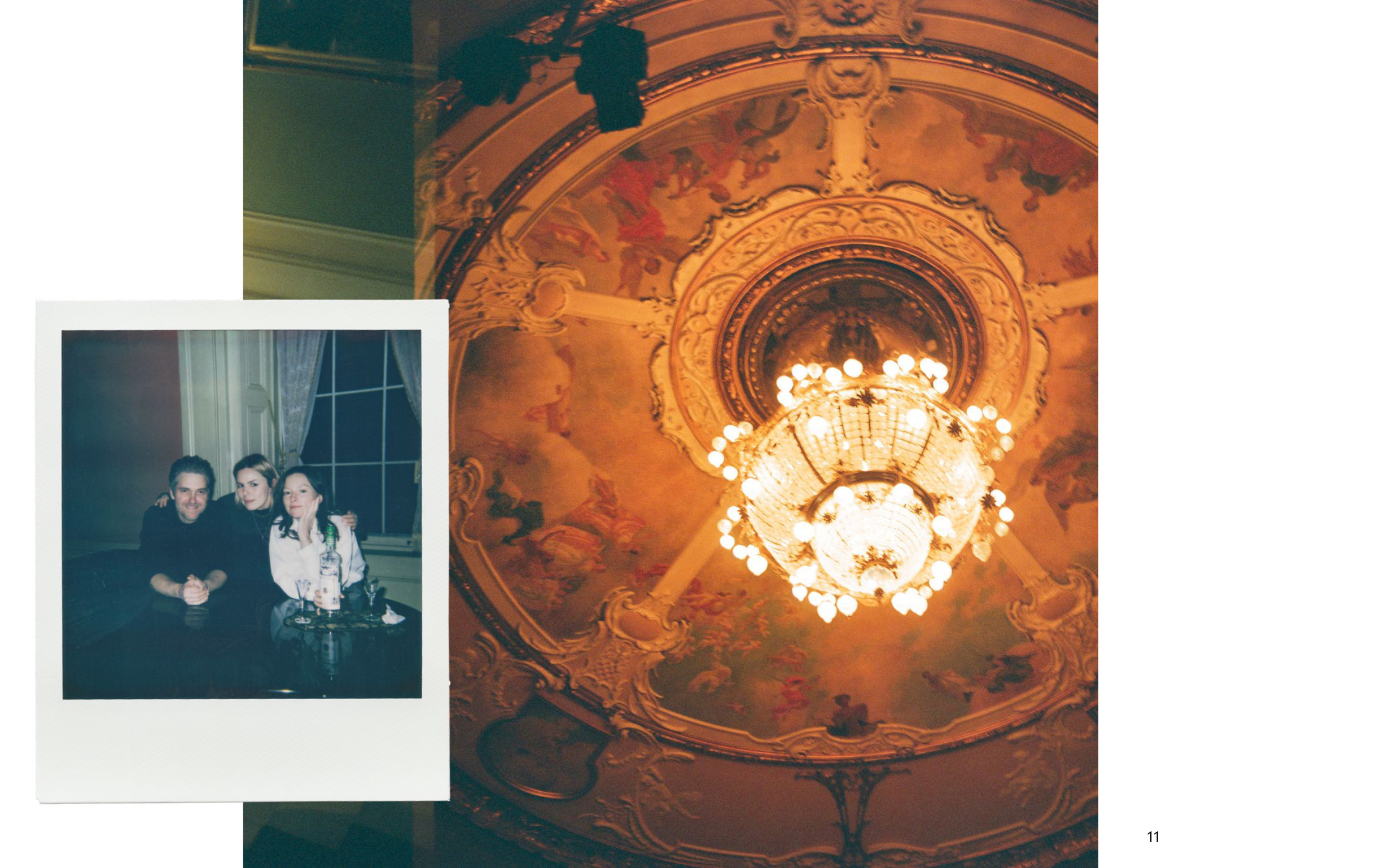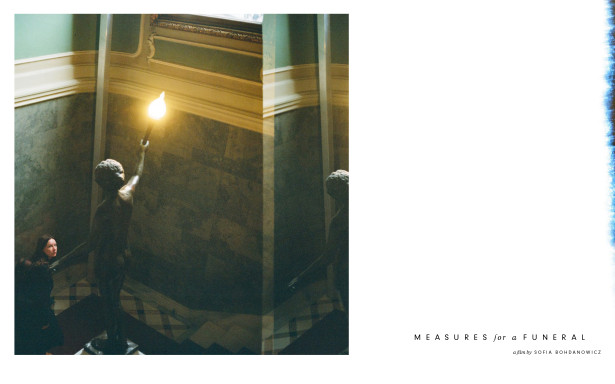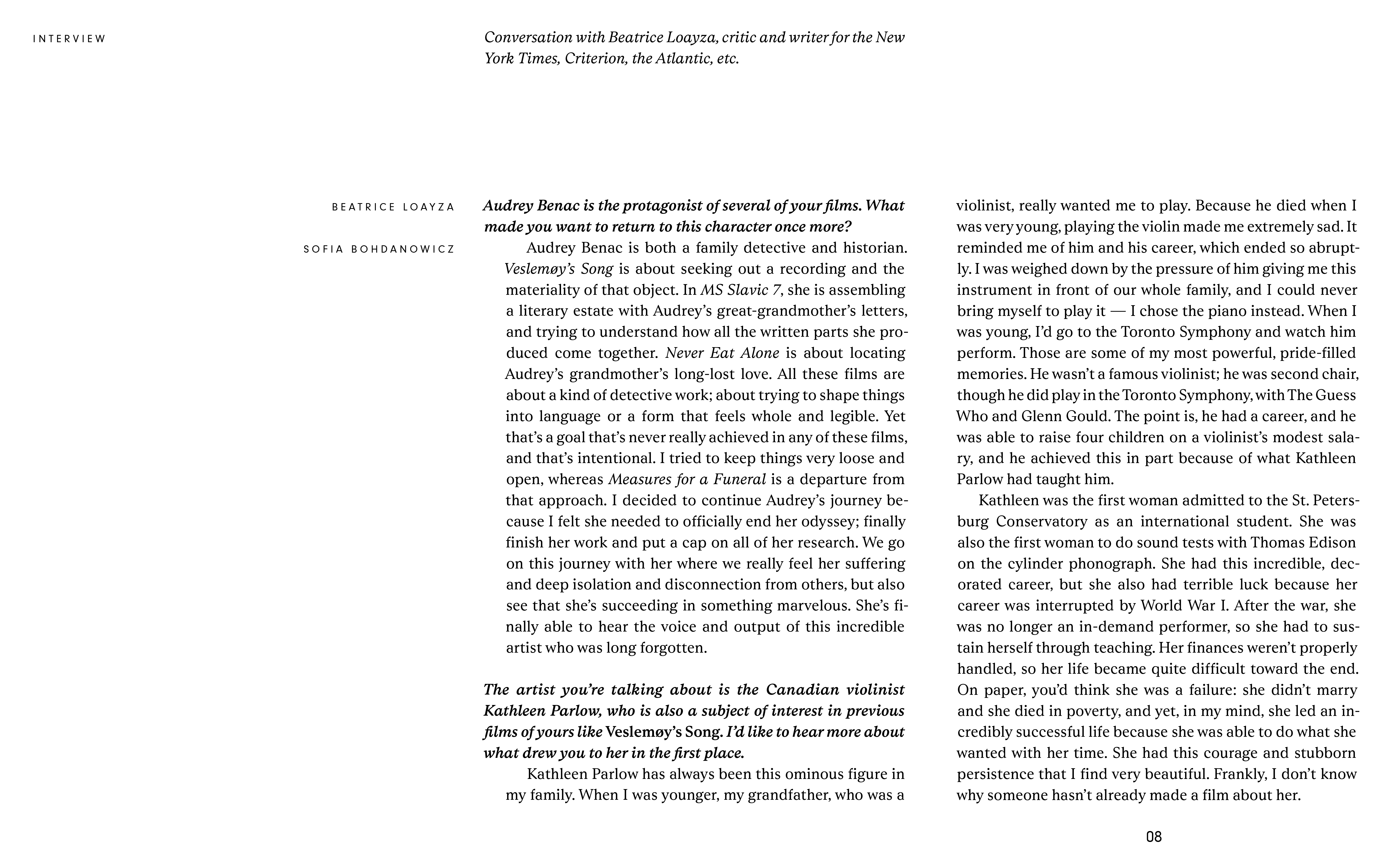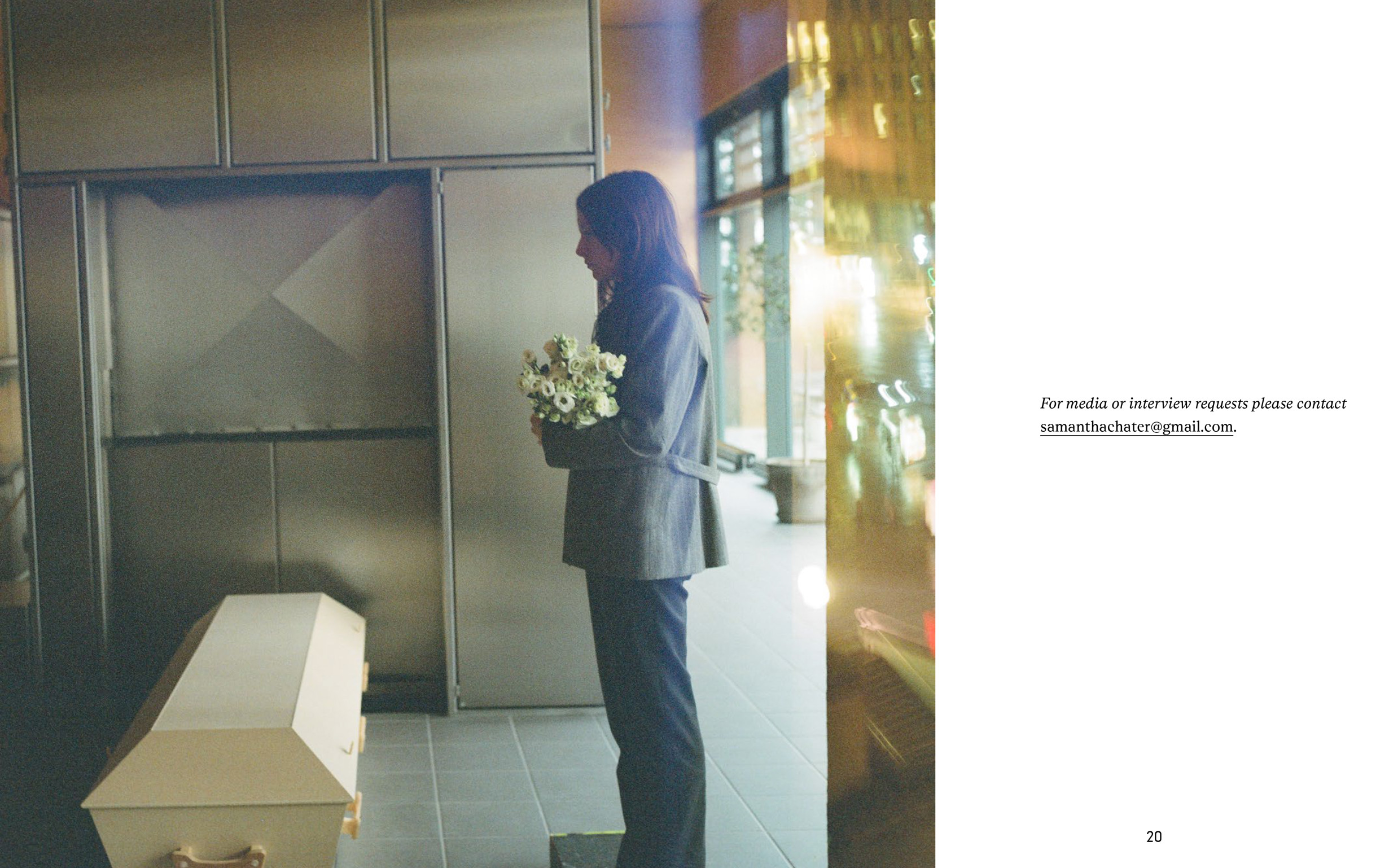
Measures for a Funeral
Measures for a Funeral brilliantly spotlights a young academic’s run towards one woman — acclaimed early 20th-century Canadian violinist Kathleen Parlow — as she simultaneously flees from another, her failed musician mother.
The press kit creates a connection between the process of filmmaking and the finished film. The mix of analog and digital photographs creates a diary like aesthetic whereas the elegantly set text contrasts and elevates the overall design.
Schrift: Rhetorik Serif von AllCaps & Neuzeit Grotesk von Wilhelm Pischner